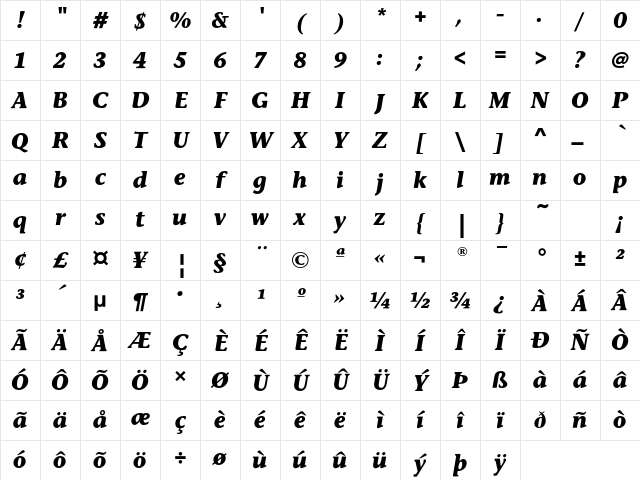
StoneInforEF BoldItalic
Design Context for StoneInforEF
StoneInforEF is a composed and adaptable typeface that performs quietly and consistently across a wide range of design contexts. The slanted form adds forward momentum and visual energy. Its bold stroke weight gives it real presence on the page.
Pro Tip: Use StoneInforEF for emphasis, pull quotes, and subheadings where its slanted energy can add rhythm to the layout.